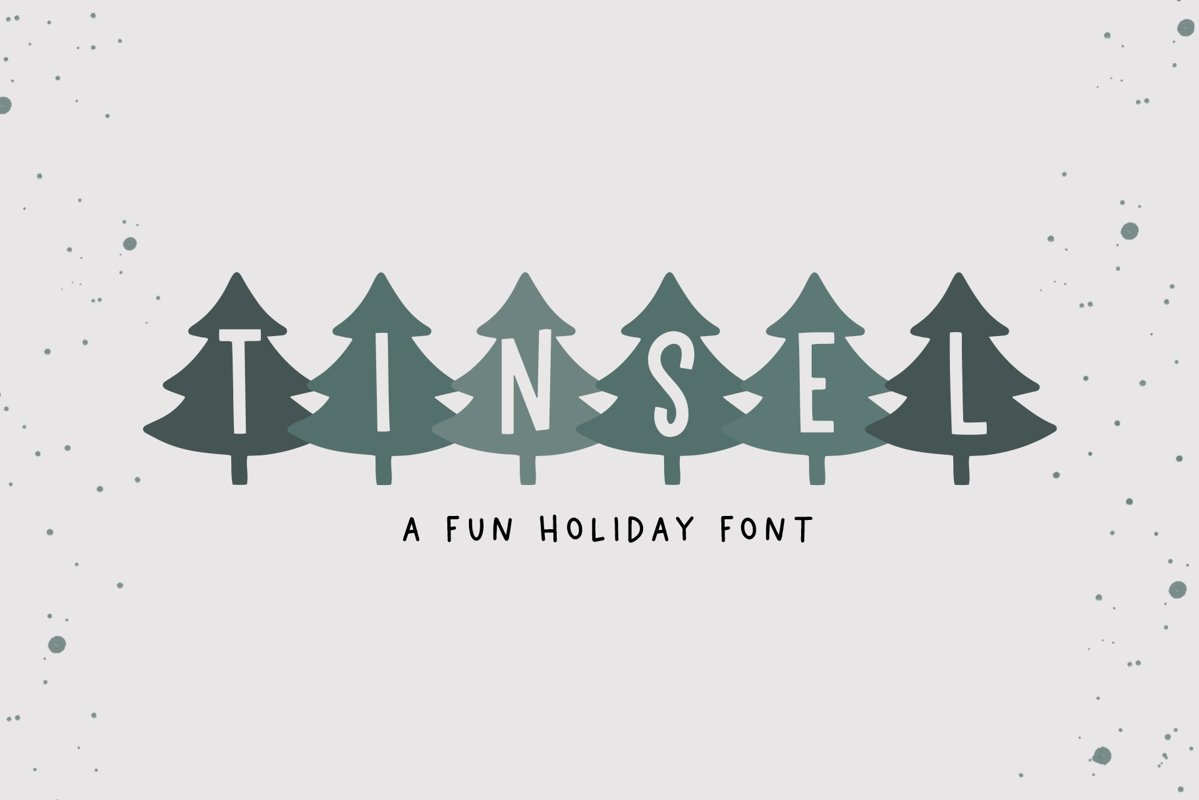
Tinsel is a fun christmas font with trees.
This font is perfect for shirt designs, holiday decor, monograms, branding, children's designs, svg designs, blogs, logos, invitations and more!
Tinsel